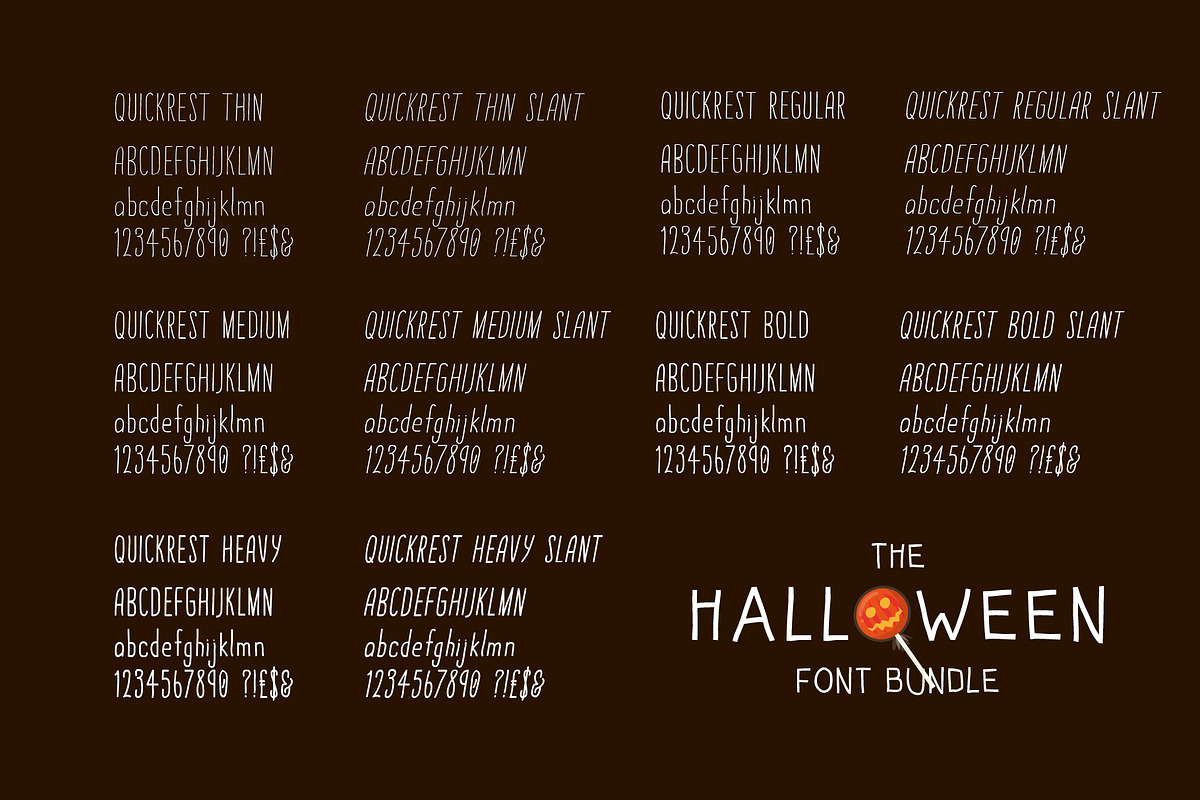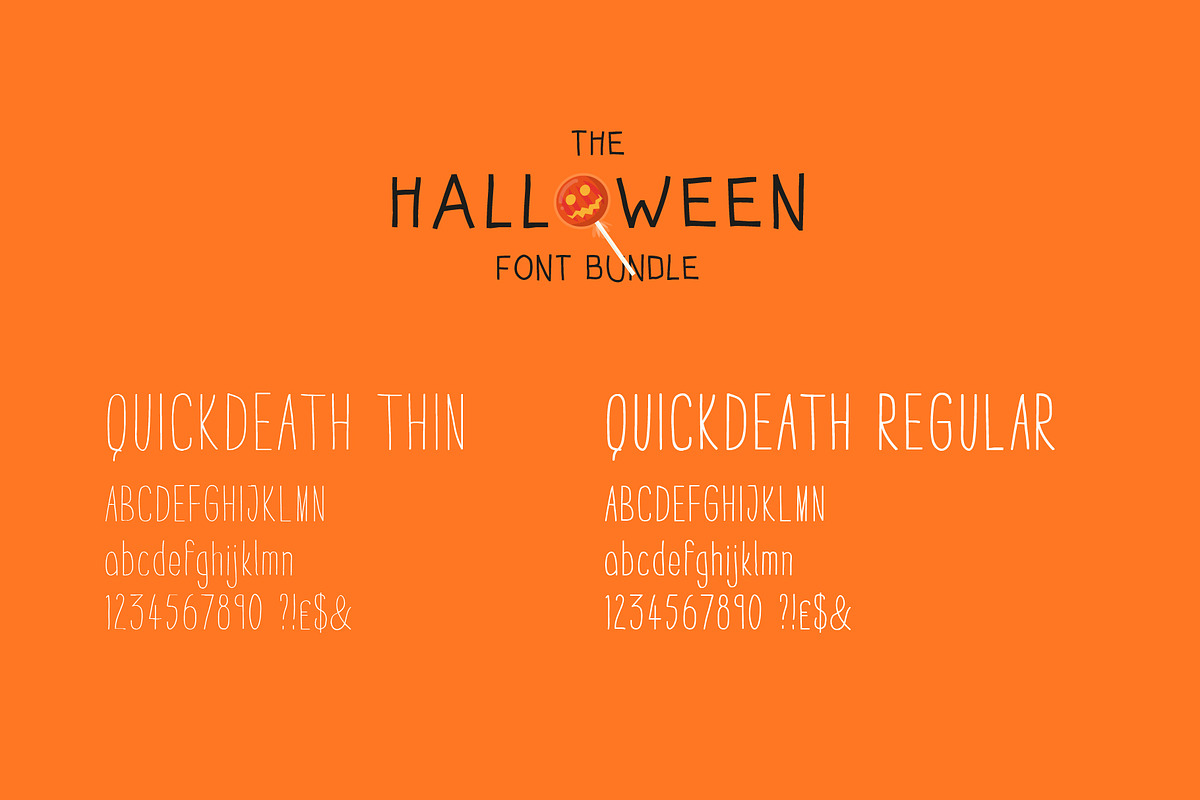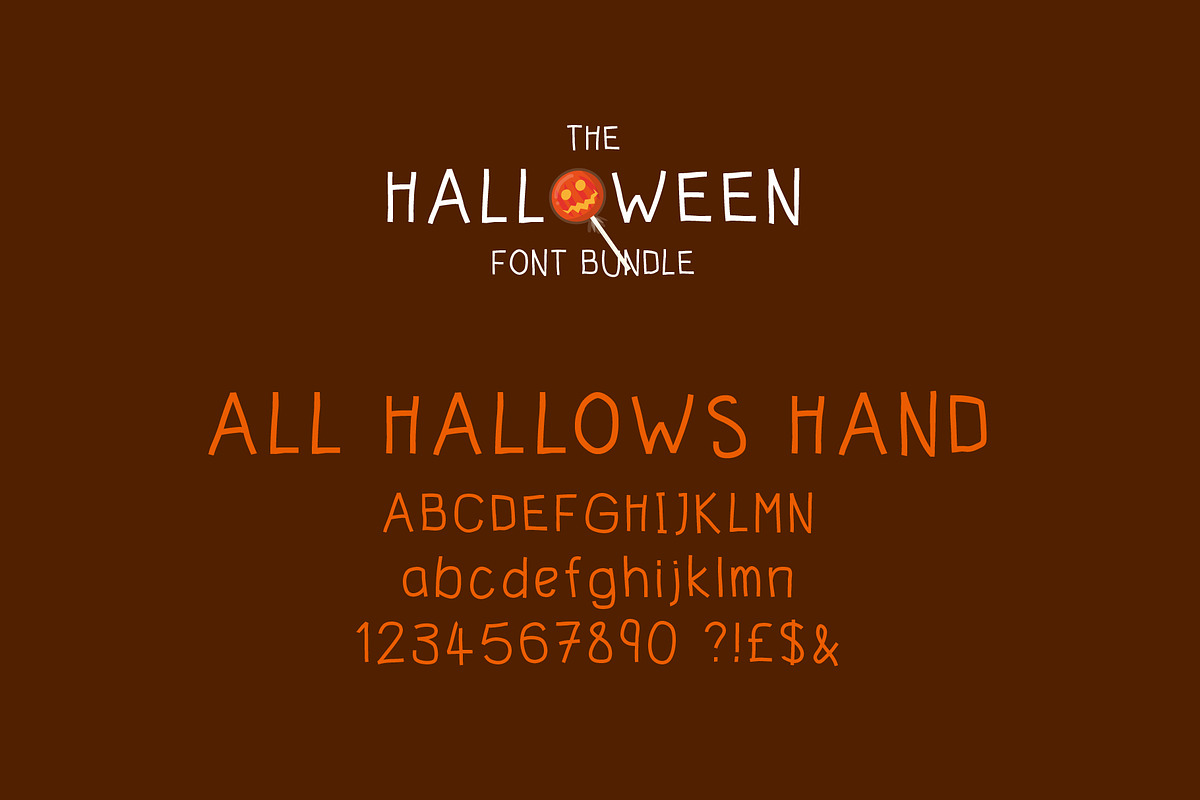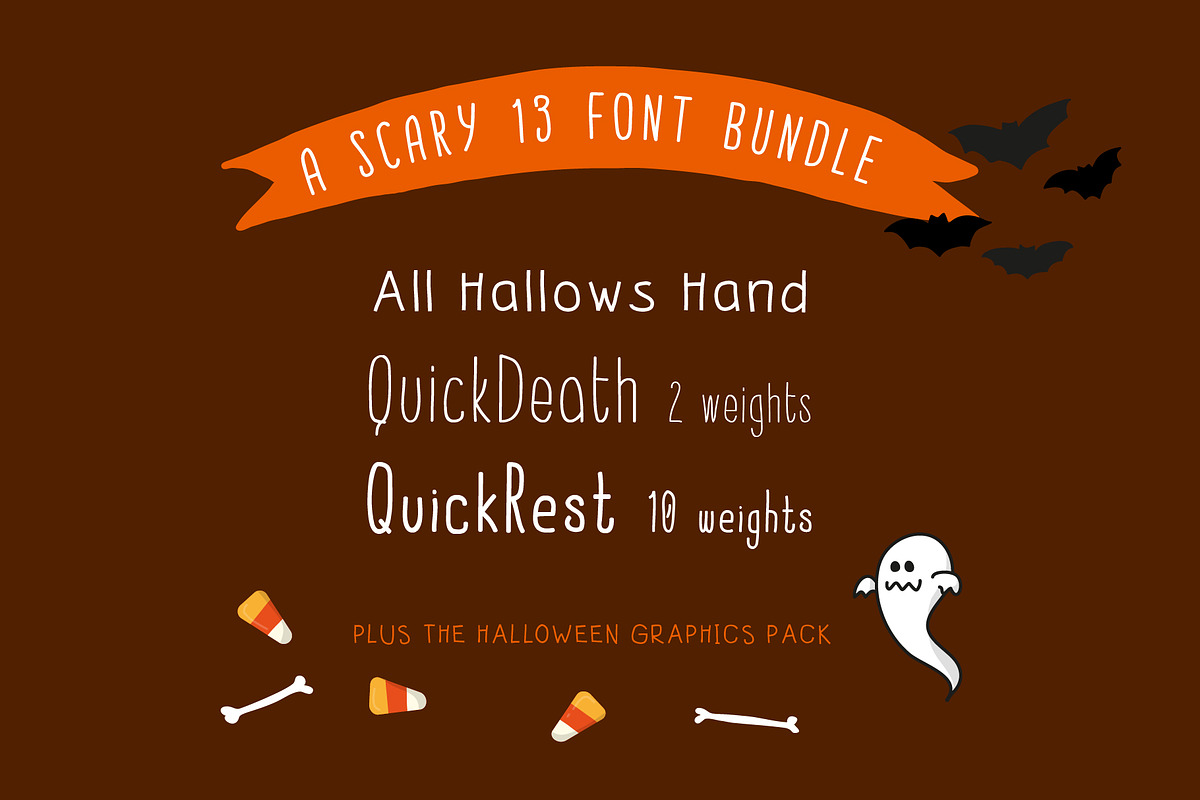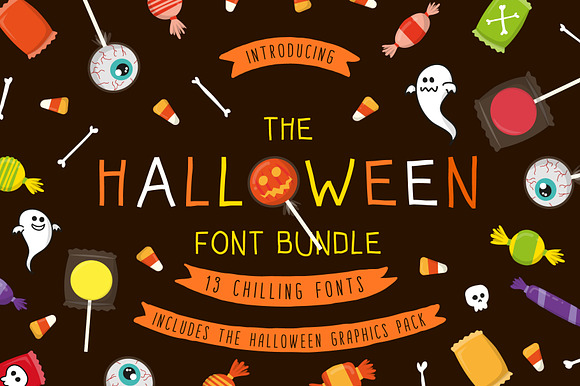
Halloween Font Bundle+FREE Graphics
Trick or Treat? Well, this one is really just a treat!
Introducing - The Halloween Font Bundle
A Chilling 13 font pack:
All Hallows Hand (1 font style)
QuickDeath (2 fonts styles)
QuickRest (10 font styles)
This hand-drawn collection of fonts have been created to give a quirky and spooky feel to your designs. The perfect set to make this years Halloween posters, t-shirts and website come to life (or death even!)
This pack also includes The Halloween Graphics pack - a collection of bold Halloween themed vector graphics, all carefully crafted to make your Halloween design pop even more.